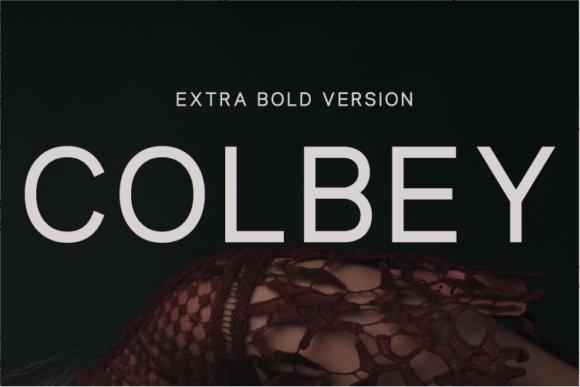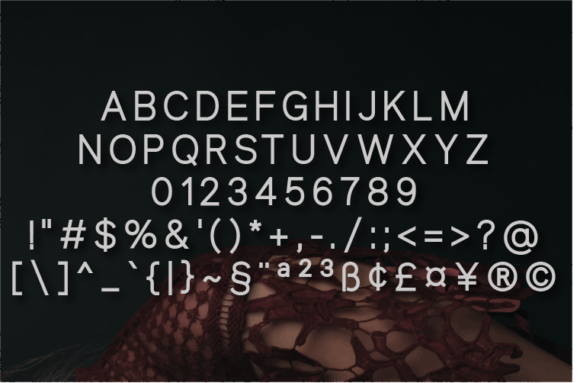
Colbey Extra Bold Font
About Colbey Extra Bold Font
Colbey Extra Bold is an elegant contemporary sans serif font with soft edges. It was designed with a clean and stylized geometry and a harmonious appearance for both texts and headlines.
This font is a great choice for branding, logos, web design and so much more.